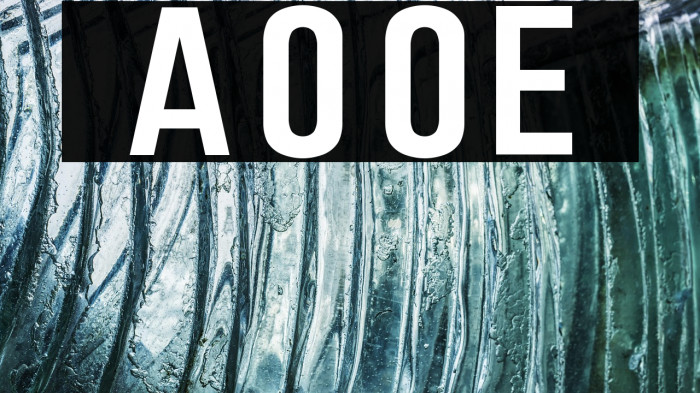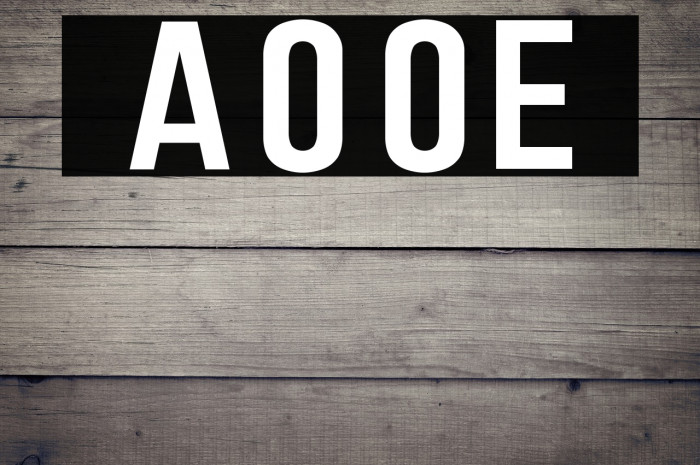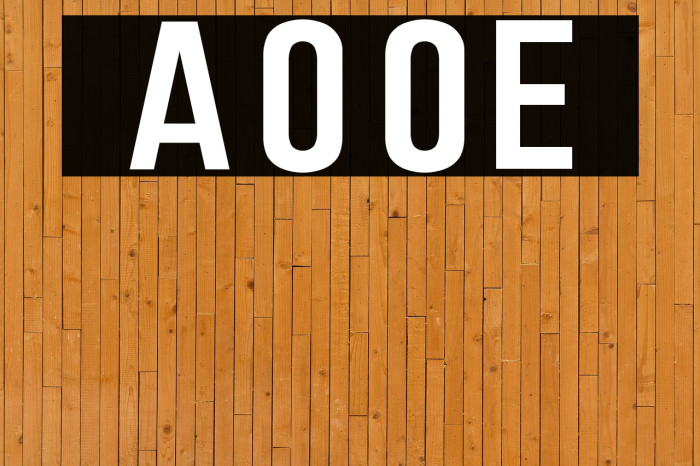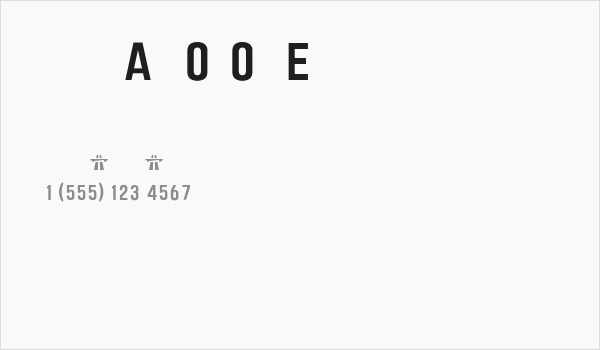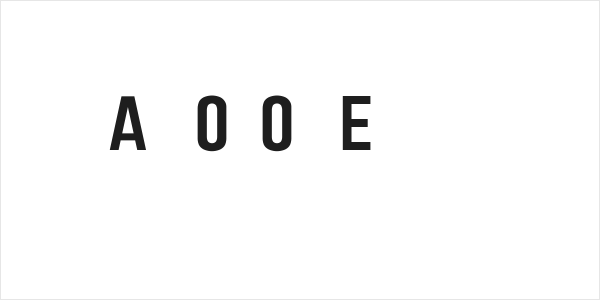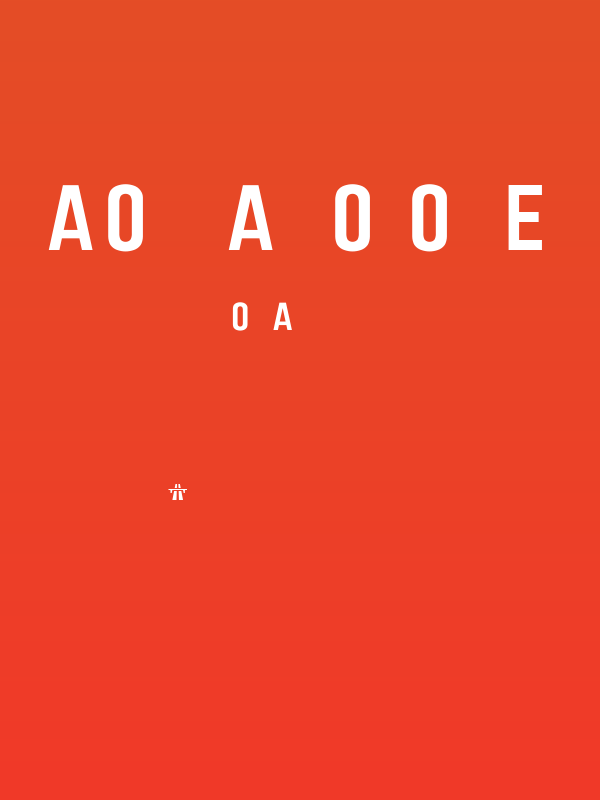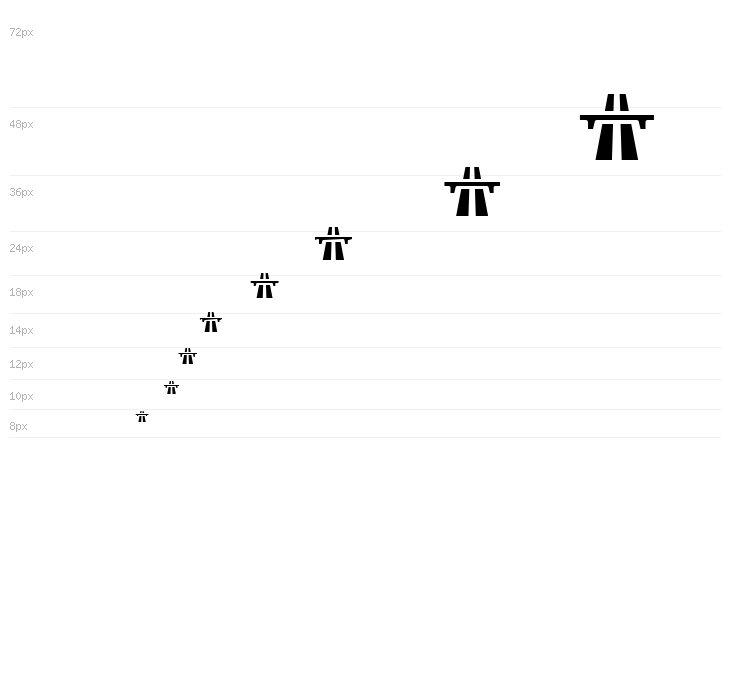
Raoul AUTOROUTE Britannique Font
Raoul AUTOROUTE Britannique Description
This font features a bold, modern design with a strong presence. The characters are tall and narrow, giving it a condensed appearance. The strokes are consistent in weight, providing a uniform look across all letters and numbers. The uppercase letters are particularly striking, with sharp angles and clean lines that convey a sense of authority and clarity. The numerals are equally bold, ensuring readability in various contexts. Special characters are designed to match the overall aesthetic, maintaining the same boldness and clarity.